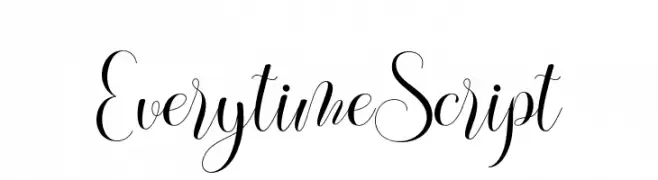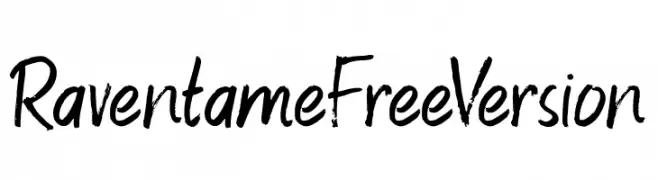
An elegant and flowing script font with delicate, intricate letterforms.
A decorative script font with elegant swirls and loops.
An elegant script font with flowing cursive style and intricate swashes.
An elegant script font with intricate swirls and flourishes.
A whimsical handwritten font with flowing, artistic letterforms.
A bold, playful font with rounded, whimsical characters.
An elegant script font with flowing, interconnected letters and a sophisticated appearance.
A bold, expressive handwritten font with brush-like strokes.
A bold, distressed font with a vintage, textured appearance.
A classic serif font with modern elegance and refined letterforms.